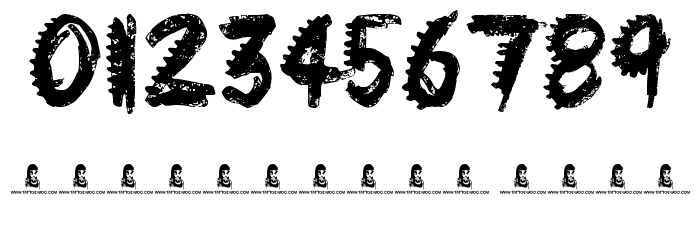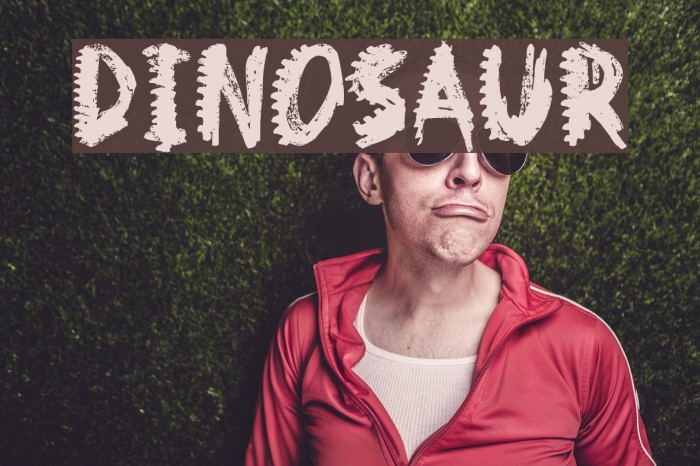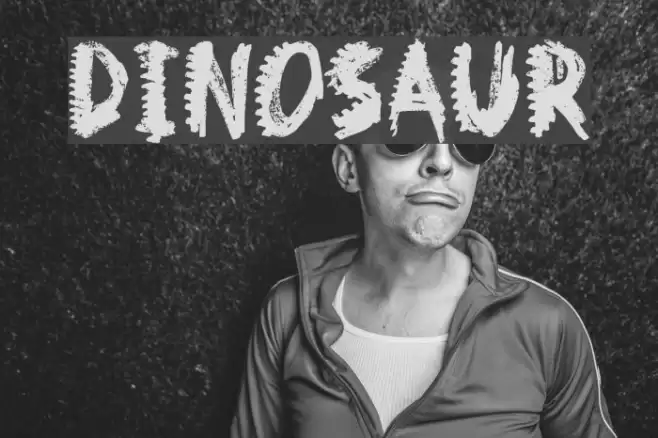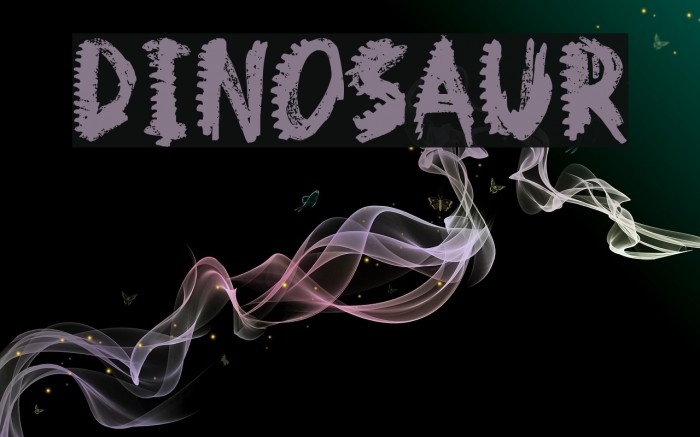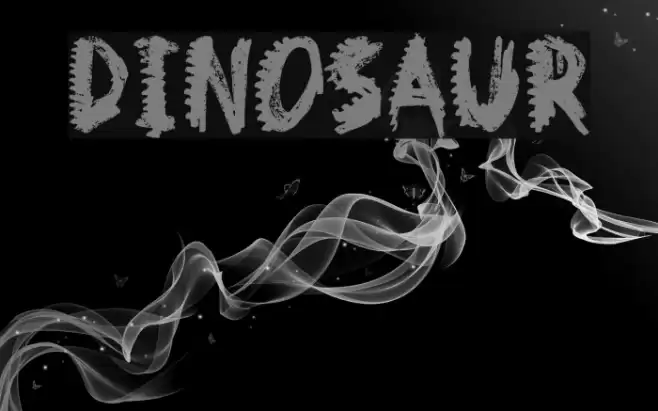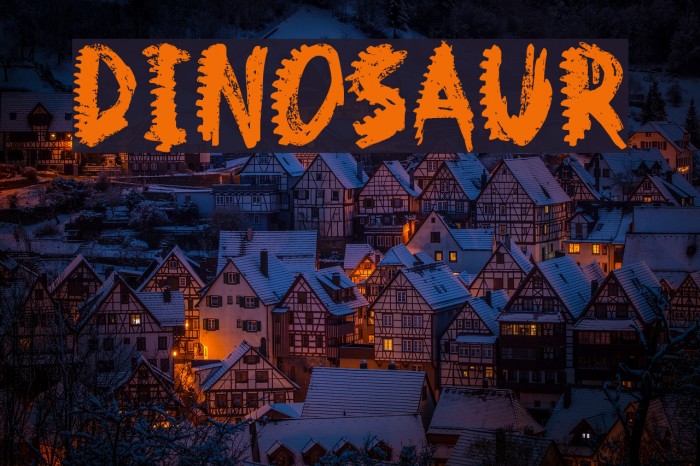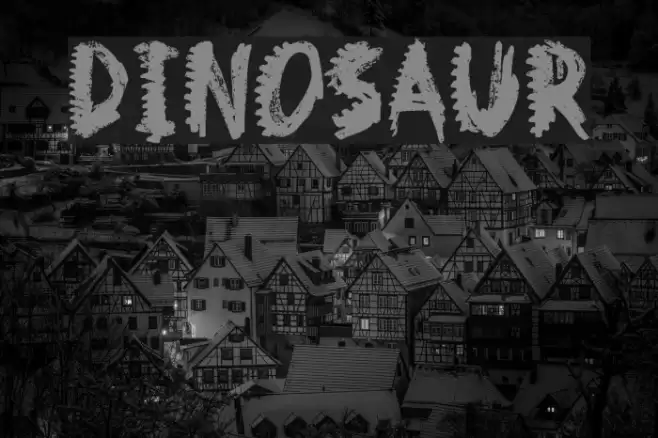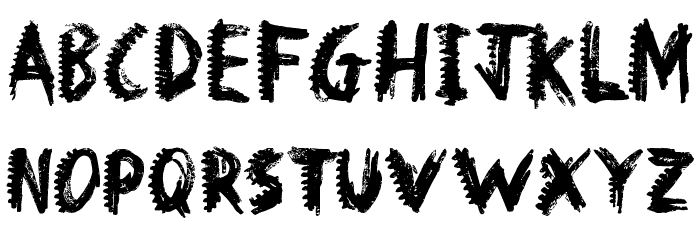
Dinosaur Font
Dinosaur Description
This font features a bold and rugged design, reminiscent of prehistoric textures and patterns. The characters are heavily textured with jagged edges, giving them a raw and dynamic appearance. The uppercase and lowercase letters maintain a consistent style, with a playful yet aggressive look. The numbers and special characters follow the same theme, making the font suitable for projects that require a bold and adventurous aesthetic. The overall impression is one of strength and energy, making it ideal for eye-catching designs.
| Proposed Projects | Ideal for adventure-themed posters, children's book covers, and branding for outdoor or extreme sports companies. |